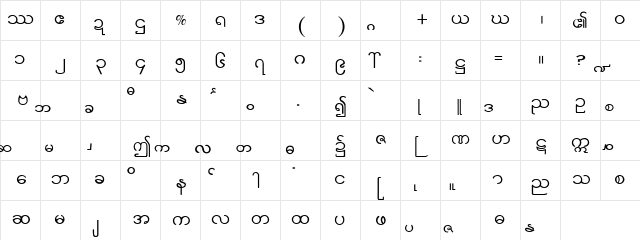
Suu Kyi Burma
| Style | Burma |
Design Context for Suu Kyi Typeface
Suu Kyi takes a measured approach to typography — its balanced proportions and neutral character make it a reliable workhorse for both digital and print work.